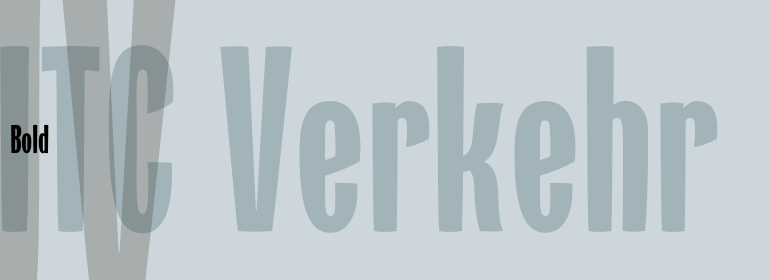
ITC Verkehr™
ITC Verkehr was designed by Mott Jordan, who based its forms on those of narrow sans serif typefaces but also chose a departure from the tradition to set the font apart from the rest. The upper half of each character is heavier than the lower half, although this is usually the other way around. Diagonal strokes, like the horizontal of the lower case e, relax the otherwise regular, bar-like look of the font. ITC Verkehr is suited exclusively for use in headlines and display in larger point sizes.